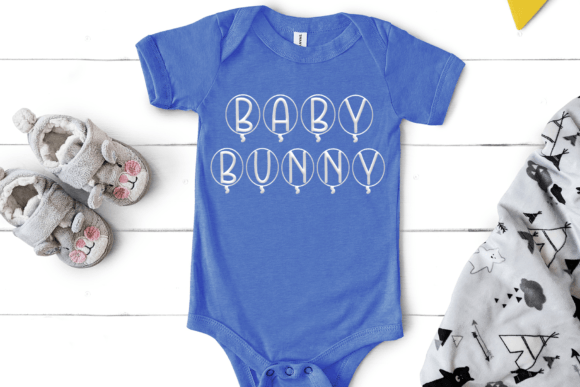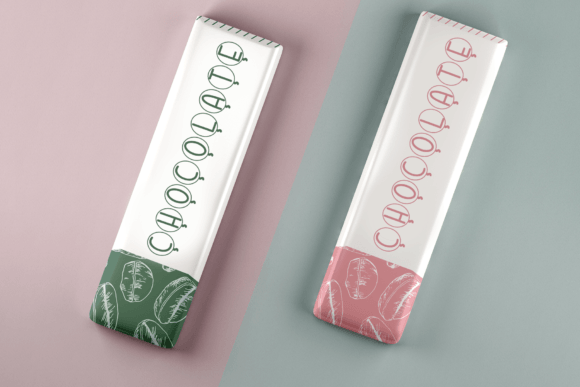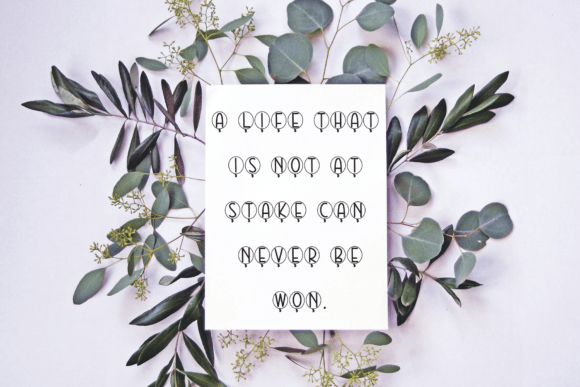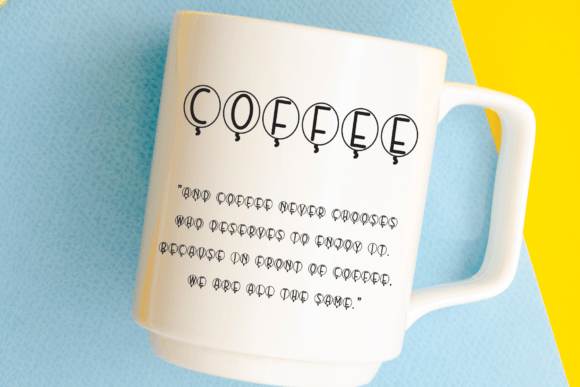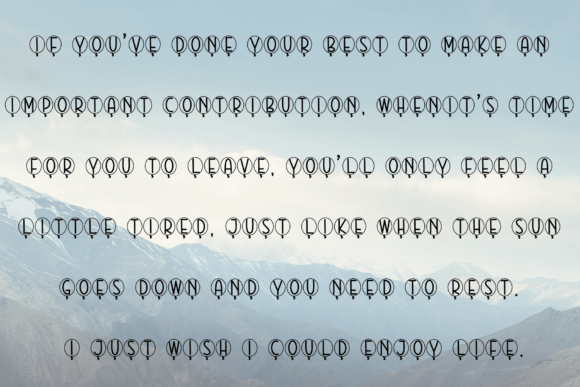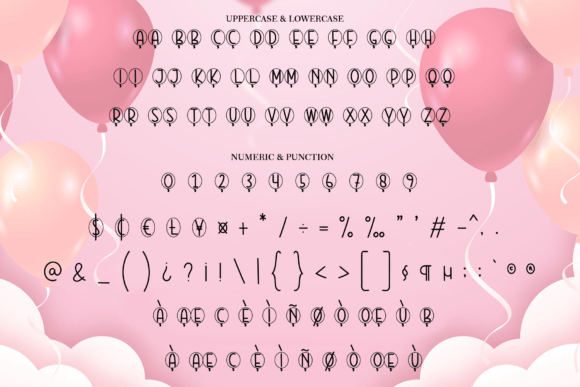
Bring the Fun with Ballon Font
You know that moment when you’re planning a birthday party and you want the invitation to perfectly capture the excitement and joy of the day? That’s exactly when I reach for a special font that screams ‘fun’ and ‘playful’ – Ballon Font. This adorable display font is the perfect addition to any design that requires a touch of youth and happiness.
Whether it’s a swimming gathering, a summer festival, or a kids’ party, Ballon Font brings an instant smile to the face. Its bubbly and cute design makes it an ideal choice for designers looking to create eye-catching and engaging visuals. By incorporating Ballon Font into your designs, you’ll add a touch of whimsy and playfulness that’s sure to delight your audience.
Ballon Font Key Features
- Font Family: Ballon is a sans-serif font family.
- Unique Characteristics: Ballon font features a rounded and soft design, with subtle curves and edges, making it ideal for use in modern and minimalist designs.
Ballon Font Review
I recently had the chance to work with the Ballon font, and I have mixed feelings about it. Let’s dive into what works well and what doesn’t.
- Unique and playful design: The Ballon font has a distinctive, whimsical feel that can add a lot of character to your designs.
- Good legibility: Despite its playful nature, the font is surprisingly easy to read, making it a good choice for body text.
- Wide range of languages: Ballon supports a wide range of languages, making it a good choice for global brands and websites.
- Limited use for headings: While the font is great for body text, it’s not the best choice for headings or titles, as it can be a bit too playful for those applications.
- Not suitable for formal designs: The Ballon font is better suited for creative, casual designs rather than formal or corporate ones.
- No bold or italic variations: The font lacks bold and italic variations, which can make it harder to use in certain situations.
Overall, I think the Ballon font is a fun and playful addition to any design toolkit. While it may not be the best choice for every project, it’s definitely worth considering for the right types of designs.
Use Balloon Font to add a playful and whimsical touch to your designs.
It’s perfect for creating eye-catching headlines, titles, and labels.
Use it in conjunction with other playful fonts to create a unique and festive look.
Alternatives to Ballon Font for Designers
Pacifico is a beautiful, elegant script font that is perfect for creating a luxurious and sophisticated look. It is ideal for use in branding, invitations, and other materials where a touch of elegance is required.
Compared to Ballon Font, Pacifico is more refined and has a more subtle feel. While Ballon Font is bold and eye-catching, Pacifico is understated and sophisticated.
Great Vibes is a modern script font that is perfect for creating a fun and playful look. It is ideal for use in branding, advertising, and other materials where a sense of energy and excitement is required.
Compared to Ballon Font, Great Vibes is more casual and laid-back. While Ballon Font is bold and attention-grabbing, Great Vibes is relaxed and easy-going.
Carolyna Pro is a elegant and refined script font that is perfect for creating a sophisticated and luxurious look. It is ideal for use in branding, invitations, and other materials where a touch of elegance is required.
Compared to Ballon Font, Carolyna Pro is more refined and has a more subtle feel. While Ballon Font is bold and eye-catching, Carolyna Pro is understated and sophisticated.
Alex Brush is a elegant and refined script font that is perfect for creating a sophisticated and luxurious look. It is ideal for use in branding, invitations, and other materials where a touch of elegance is required.